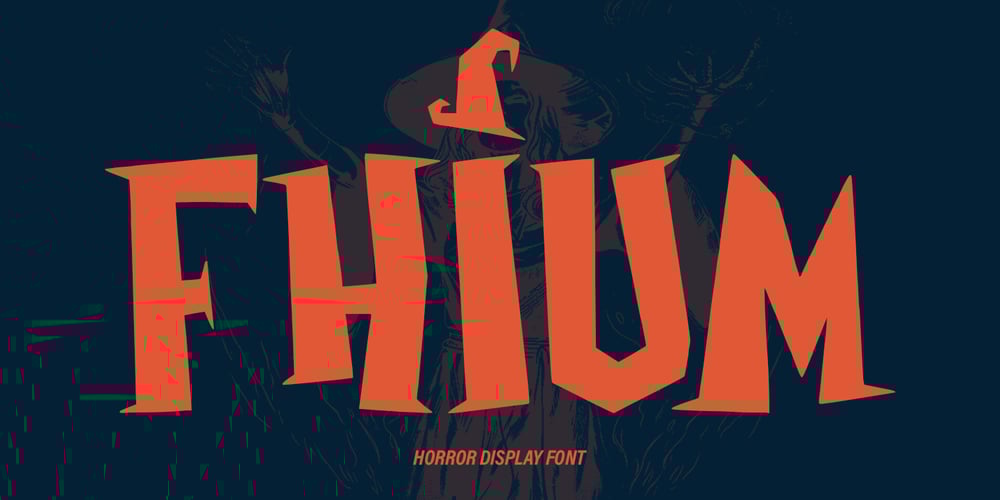
Fhium Font Family was designed by Gilang Maulana and published by Maulana Creative. Fhium contains 1 styles and family package options. Fhium modern display font. Heavy stroke, fun character with a bit of ligatures. To give you an extra creative work. Fhium modern display font support multilingual more than 100+ language. This font is good for logo design, Social media, Movie Titles, Books Titles, a short text even a long text letter and good for your secondary text font with script or serif. Make a stunning work with Fhium modern display font. Cheers, Maulana Creative